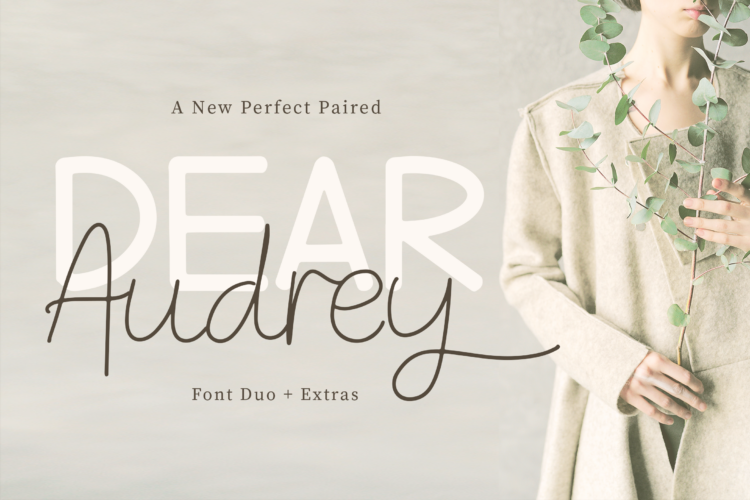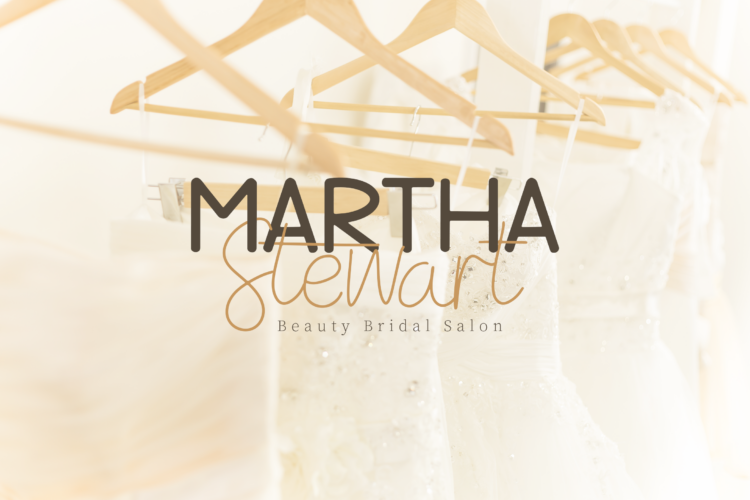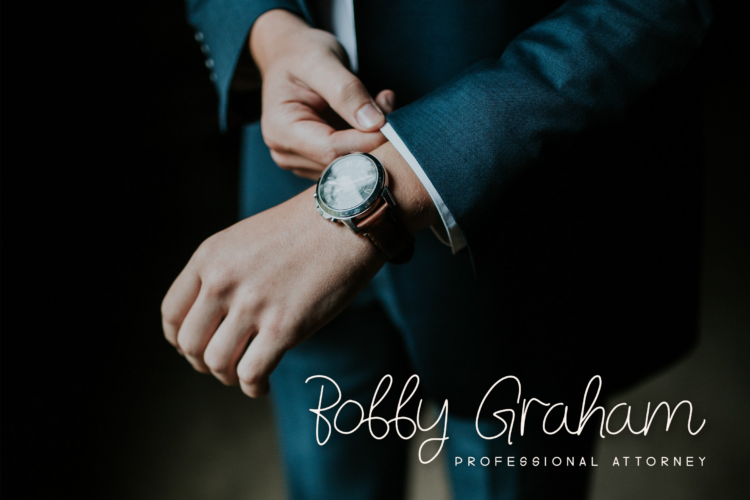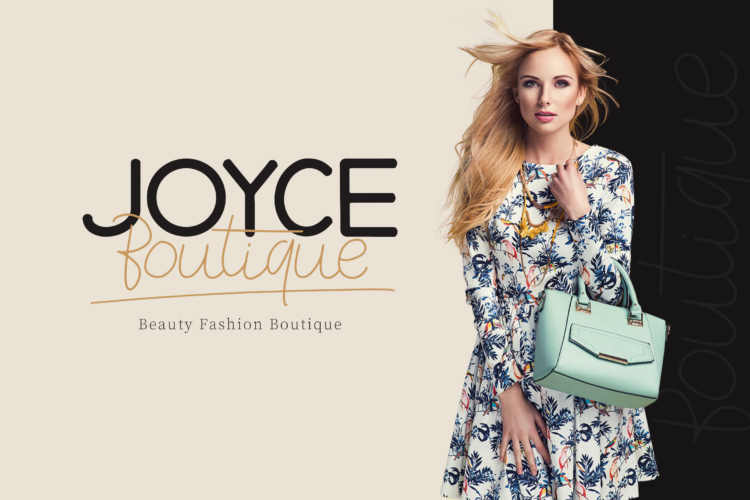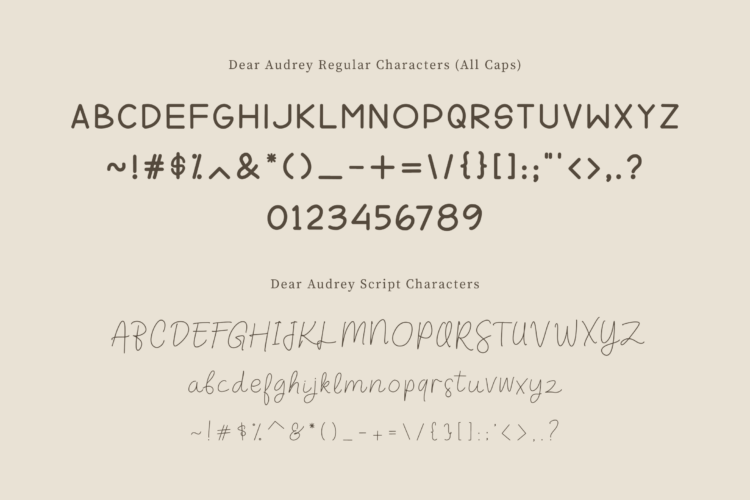
We are introducing to you a perfect handwritten font duo, DearAudrey, with a unique and elegant feel united into one suitable for branding projects such as logo, presentation and product packaging. It is also a good choice for a casual type such as greeting cards and illustration, wedding and fashion themed.
Every package of DearAudrey Handwritten Font Duo consists of three fonts files, DearAudrey Regular that is a font type with sans characters that perfect for heading in any clean layout; DearAudrey Script that is a font type calligraphy or signature style that perfect for the wedding, banquet, profile or any kind of beauty brands; and last, DearAudrey Extras that contained a set of 16 hand-drawn swashes, perfect for finishing touch as underline on your text.
- DearAudrey Regular: Font type with sans character. It is perfect for the heading in any clean layout.
- DearAudrey Script: Font type calligraphy or a signature style. It is perfect for the wedding, boutique, profile and beauty brand.
- DearAudrey Extras: A set of 16 hand-drawn swashes, the perfect finishing touch to underline your text. Simply install this as a separate font, select it from your font menu and type any A-P character to create a swash.